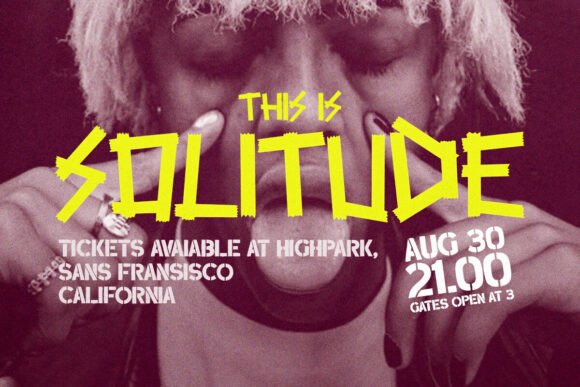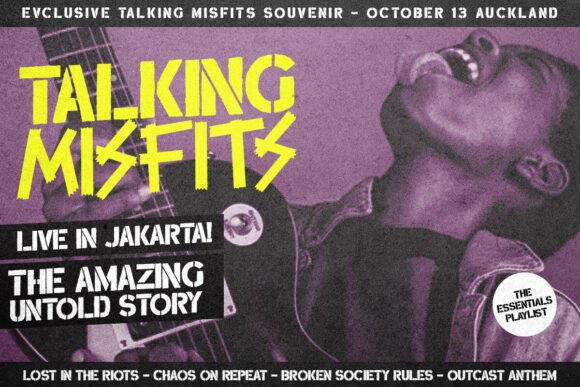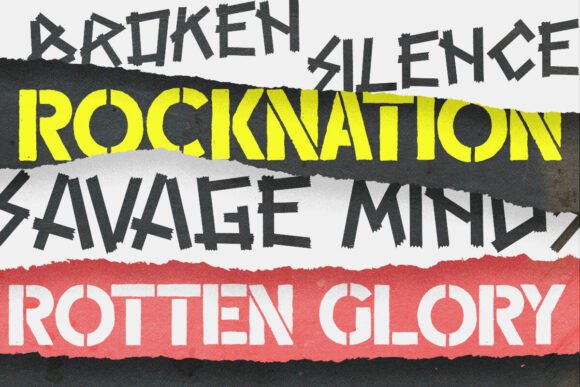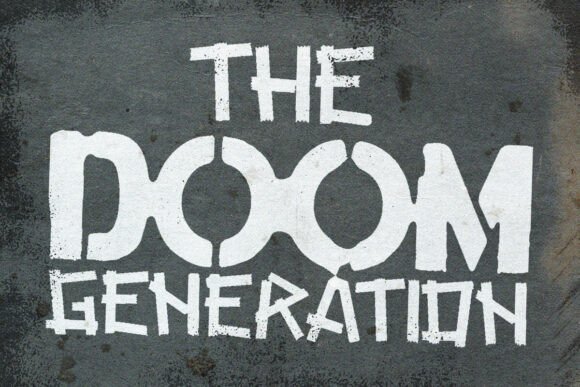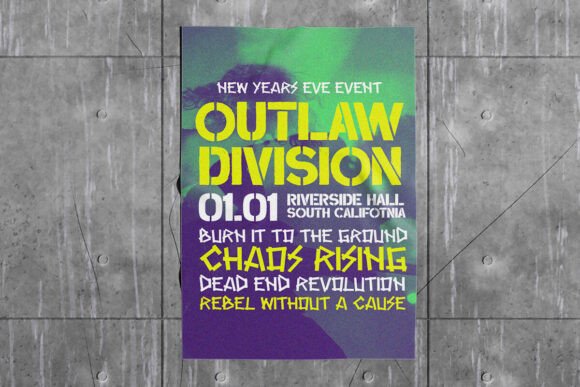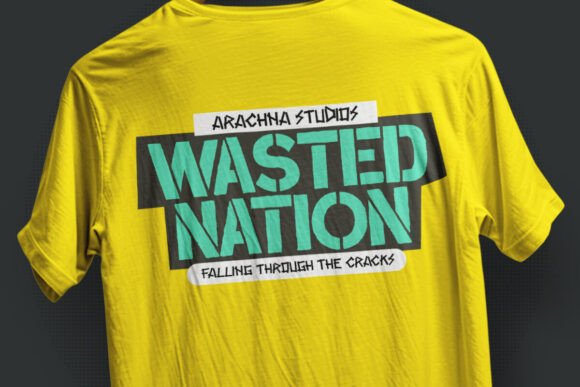
Meet Broken Silence: The Bold, Street-Style Font That’s Breaking the Mold
I’ll never forget the design project that led me to discover Broken Silence. I was working on a branding campaign for a streetwear label, and I was struggling to find a font that captured the edgy, urban vibe I was looking for. That’s when I stumbled upon Broken Silence—a bold, street-style display font that mixes raw stencil cuts with freestyle urban vibes. It was love at first sight! 💕
A Game-Changing Font for Street-Themed Designs
Broken Silence is more than just a font—it’s a statement. This font duo is perfect for street-themed designs, streetwear branding, or even the title of a game. It’s made to stand out on logos, headlines, signage, and more, while also looking sharp on apparel, book covers, labels, packaging, and all kinds of advertising.
So, what makes Broken Silence so special? Here are a few things I love about this font:
- ✨ Versatility: Broken Silence comes in two styles, making it perfect for a wide range of design projects.
- ✅ Legibility: Despite its bold and edgy look, Broken Silence is surprisingly legible, even at smaller sizes.
- 💥 Impact: This font is designed to make a statement, and it definitely delivers.
Of course, no font is perfect, and Broken Silence has a few small quirks:
- 🤔 Limited use cases: While Broken Silence is amazing for street-themed designs, it might not be the best fit for more traditional or elegant projects.
- ⚠️ Glyph limitations: As with any font, there may be limitations to the glyphs and special characters available.
- Experiment with the font’s OpenType features, such as stylistic alternates and glyphs, to add more personality to your design.
Broken Silence was inspired by the urban landscapes of city streets. The designer wanted to create a font that captured the raw energy and edginess of street culture, while still being legible and versatile. The result is a font that’s perfect for designers who want to add a bold, street-style touch to their projects.
| What type of projects is Broken Silence best suited for? | Broken Silence is perfect for street-themed designs, streetwear branding, and titles for games or movies. |
| Is Broken Silence easy to read? | Yes, despite its bold and edgy look, Broken Silence is surprisingly legible, even at smaller sizes. |
| Does Broken Silence come with any special features? | Yes, Broken Silence comes with OpenType features, glyphs, and stylistic alternates, making it a versatile font for designers. |